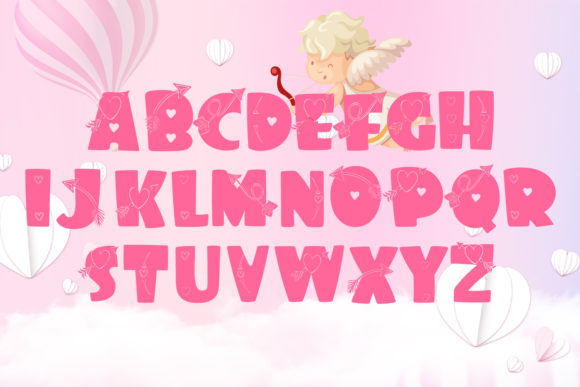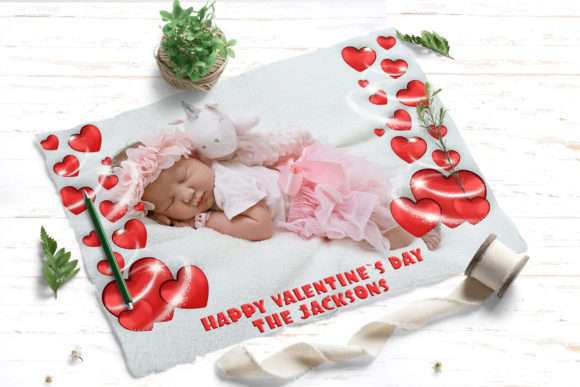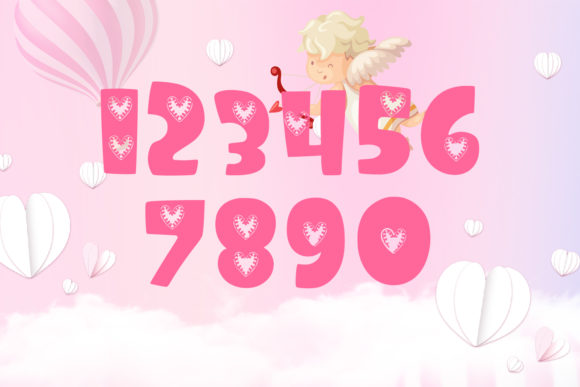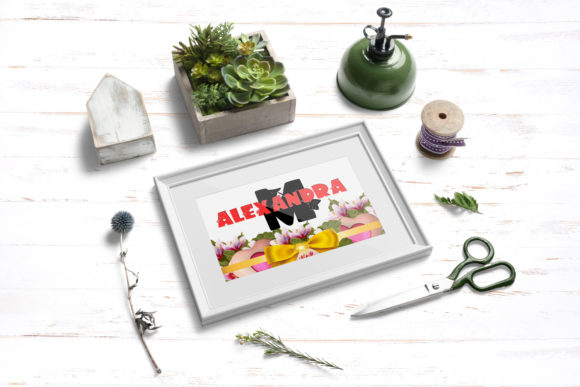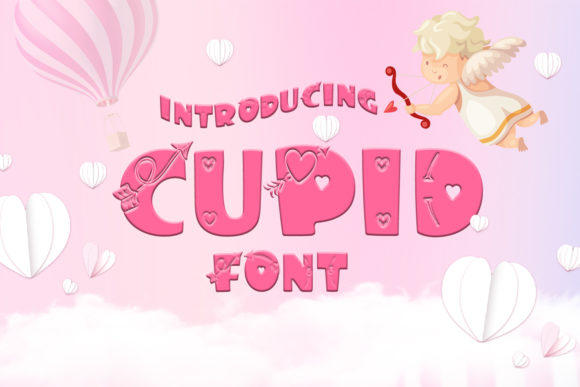
Cupid Font: The Quirky and Playful Display Font for Your Design Needs
Are you looking for a font that adds a touch of whimsy and playfulness to your designs? Look no further than Cupid Font! This charming display font is perfect for a variety of projects, from baby shower invitations to Valentine’s Day cards, and is sure to bring a smile to your audience’s faces.
What is Cupid Font?
Cupid Font is a unique and quirky display font that is themed, yet versatile enough to be used for many purposes. Its playful design makes it perfect for projects that require a touch of fun and personality. Whether you’re a designer, crafter, or DIY enthusiast, Cupid Font is a great addition to your font collection.
Uses for Cupid Font
One of the best things about Cupid Font is its versatility. Here are just a few ideas for how you can use this font in your designs:
- Baby Shower Invitations: Add a touch of sweetness to your baby shower invitations with Cupid Font. The font’s playful design is perfect for announcing the upcoming arrival of a little one.
- Thank You Cards: Use Cupid Font to add a personal touch to your thank you cards. The font’s quirky design is sure to make your cards stand out.
- Nursery Wall Art: Create adorable nursery wall art with Cupid Font. The font’s playful design is perfect for decorating a little one’s nursery.
- Valentine’s Day Invitations: Make your Valentine’s Day invitations extra special with Cupid Font. The font’s theme is perfect for the holiday of love.
Why Choose Cupid Font?
So why choose Cupid Font for your design needs? Here are just a few reasons:
- Unique Design: Cupid Font has a unique and quirky design that is sure to make your projects stand out.
- Versatility: Despite being themed, Cupid Font is versatile enough to be used for many purposes.
- Easy to Read: Cupid Font is easy to read, even at smaller sizes, making it perfect for a variety of projects.
- Fun and Playful: Cupid Font adds a touch of fun and playfulness to any project.
Tips for Using Cupid Font
Here are a few tips for using Cupid Font in your designs:
- Use it for Headings: Cupid Font is perfect for headings and titles. Use it to add a touch of personality to your projects.
- Pair it with Other Fonts: Cupid Font pairs well with other fonts. Try pairing it with a more traditional font for a fun and playful look.
- Experiment with Colors: Cupid Font looks great in a variety of colors. Experiment with different colors to find the perfect look for your project.
Cupid Font is a quirky and playful display font that is perfect for a variety of design needs. Its unique design, versatility, and ease of use make it a great addition to any font collection. Whether you’re a designer, crafter, or DIY enthusiast, Cupid Font is sure to bring a touch of fun and personality to your projects. So why not give it a try and see what amazing designs you can create?